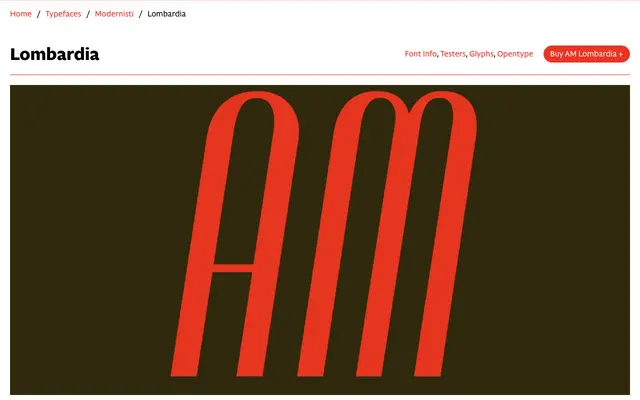
AM Lombardia
CAST · Luciano Perondi, Carlotta Albiero · 2024
A digital revival of a 1941 Florentine metal type, redrawn by Luciano Perondi and Carlotta Albiero with added lowercase and alternates.
Originally patented by Pierallini, Turchi & Co. in Florence in 1941 and designed by graphic designer Egidio Bozzolo, Lombardia's all-caps condensed forms carry a strong 8-degree slant, high thick/thin contrast and a characteristic small curve at the central intersections of B, K and R. The digital revival closely follows the original metal type in its uppercase, figures and punctuation, while Perondi and Albiero extended it with lowercase letters modelled partly on the 1954 Spanish typeface Ilerda, plus alternate characters including the E and M variants present in Bozzolo's original. The result sits within CAST's Modernisti series, which collects revivals of Italian modernist-era type.
An all-caps condensed sans-serif with high thick/thin contrast and an 8-degree slant, characteristics that push it firmly into display territory rather than general-purpose sans-serif use.